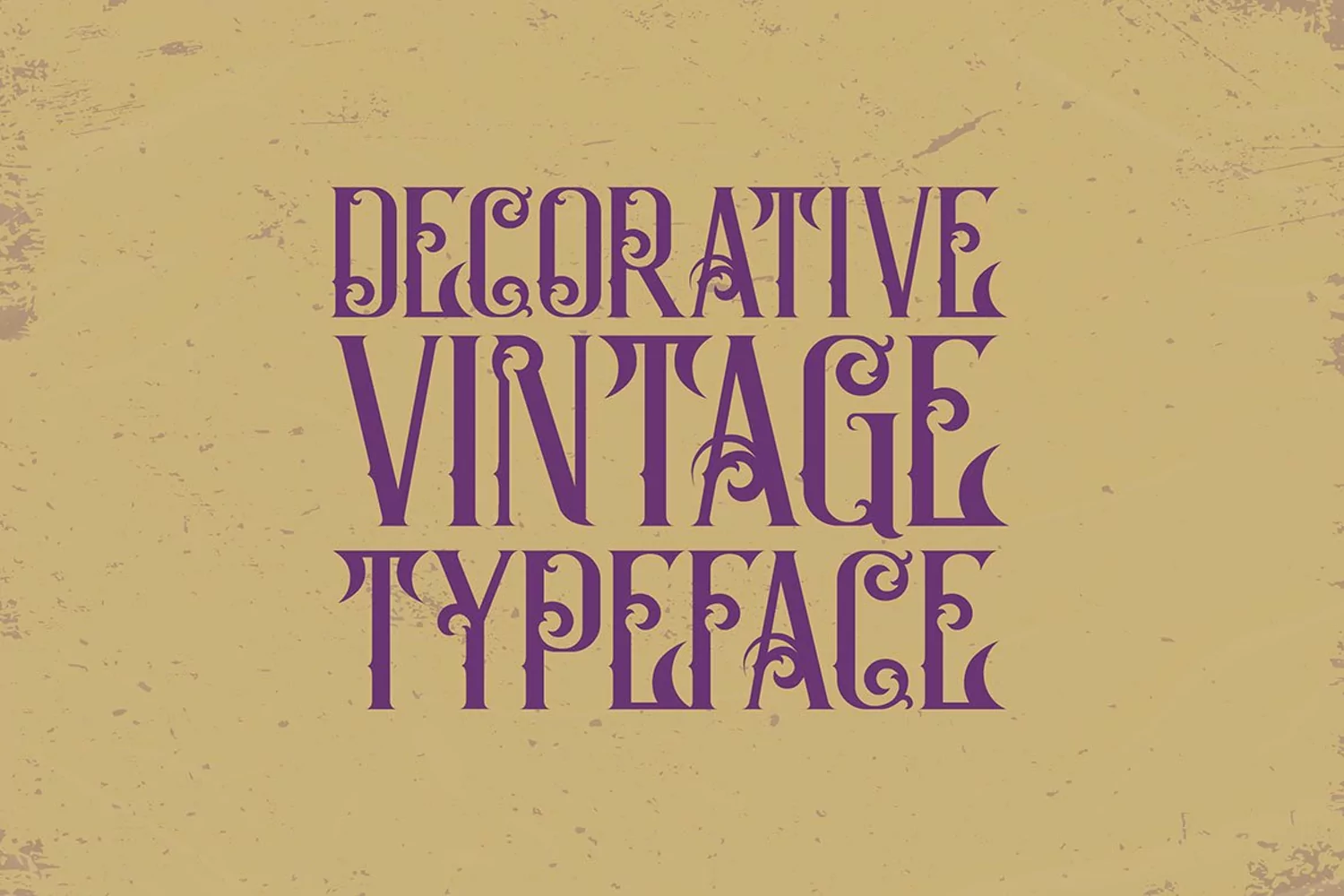
Unique ornamental, vintage, retro & decorative serif font. Great for your new logo or branding project.
-Great for retro or vintage style branding projects
Electrum